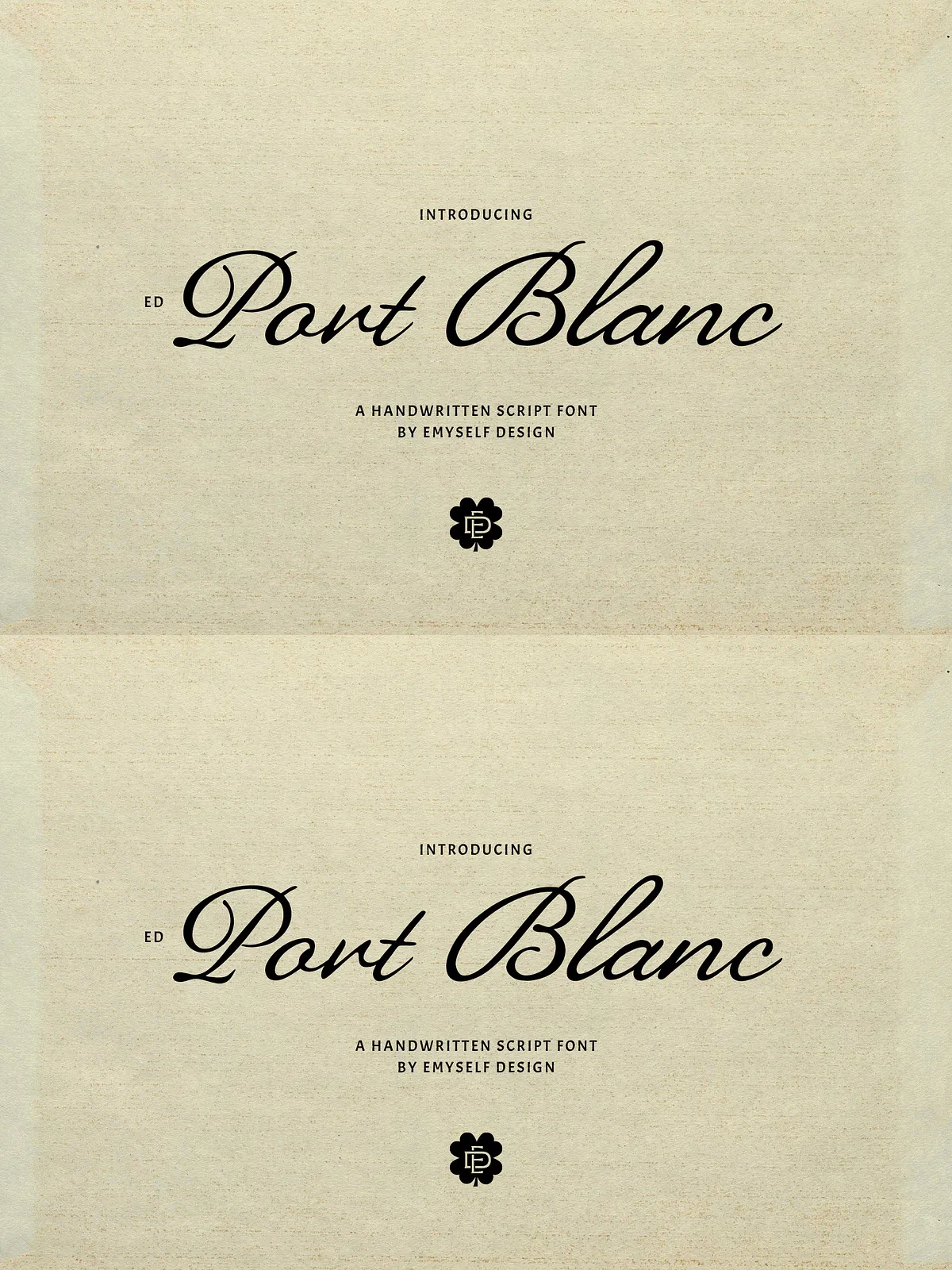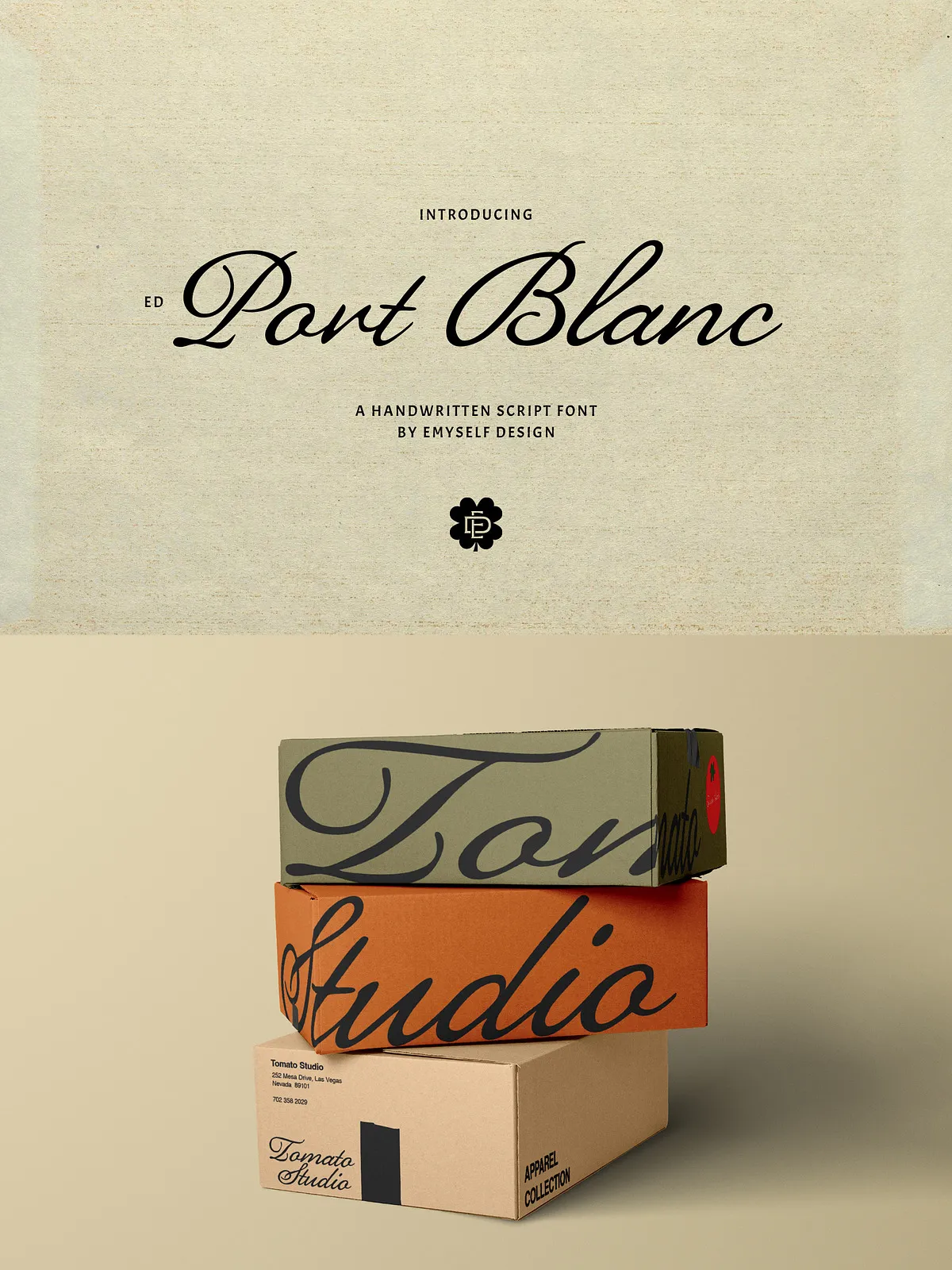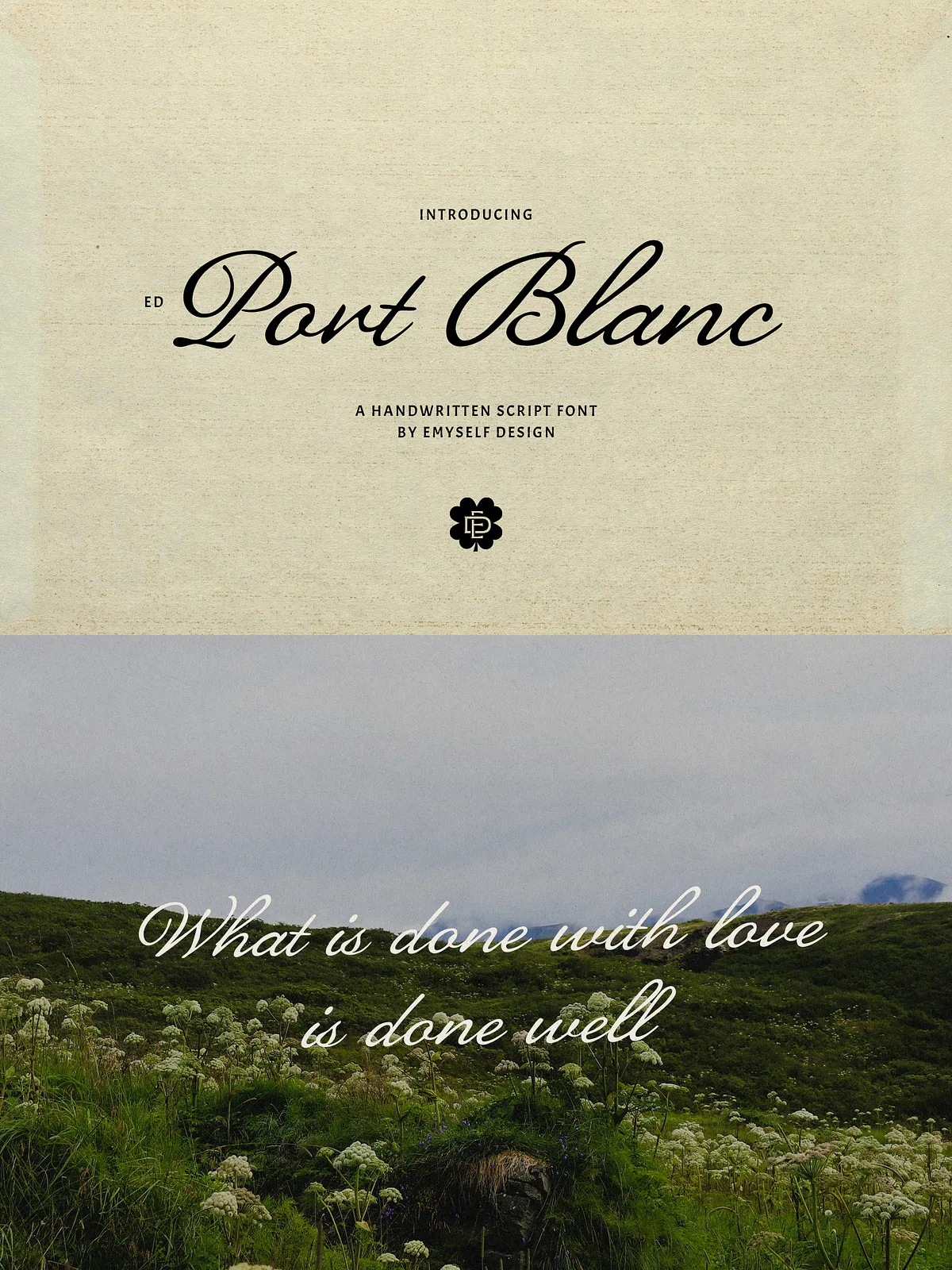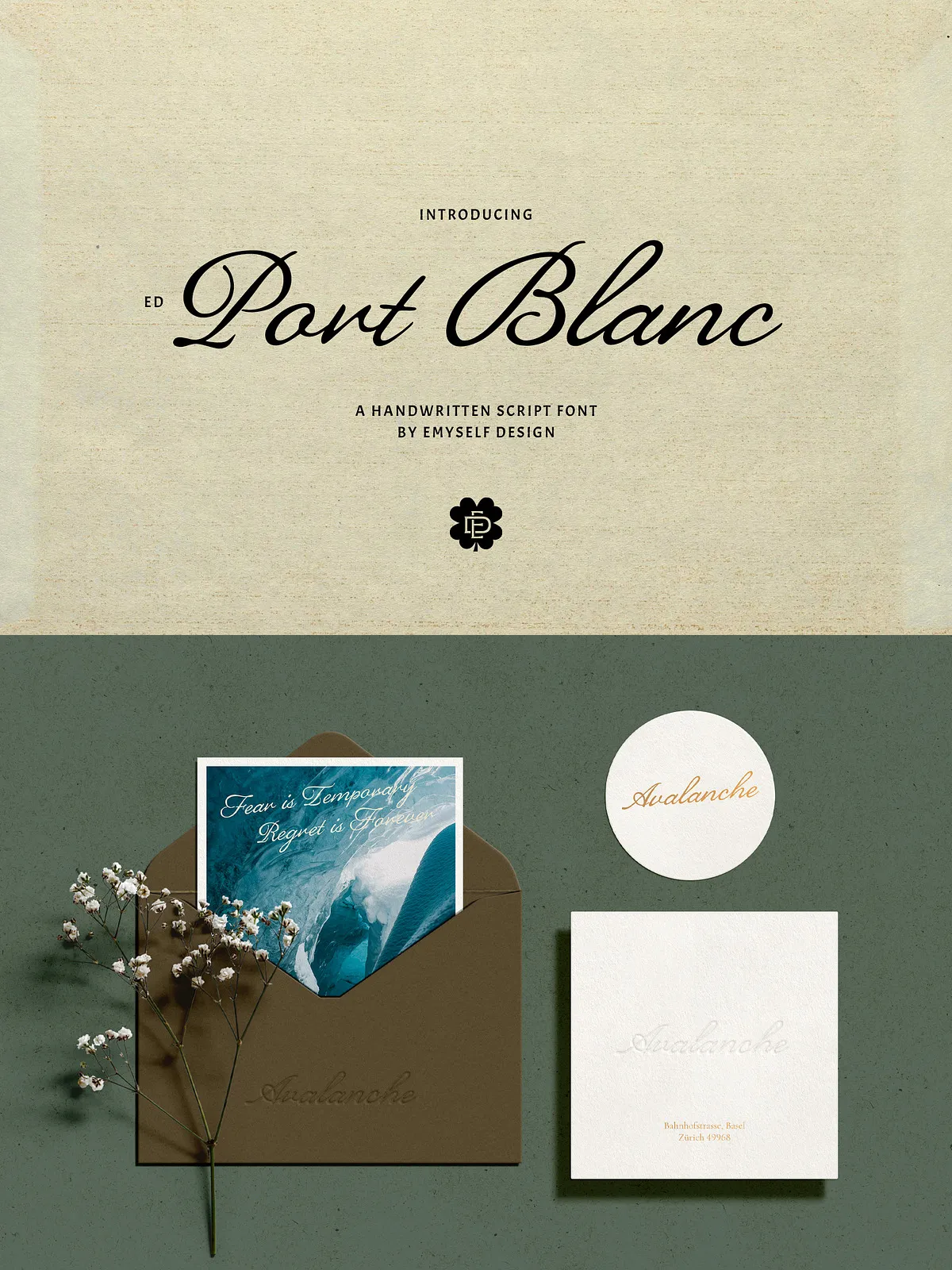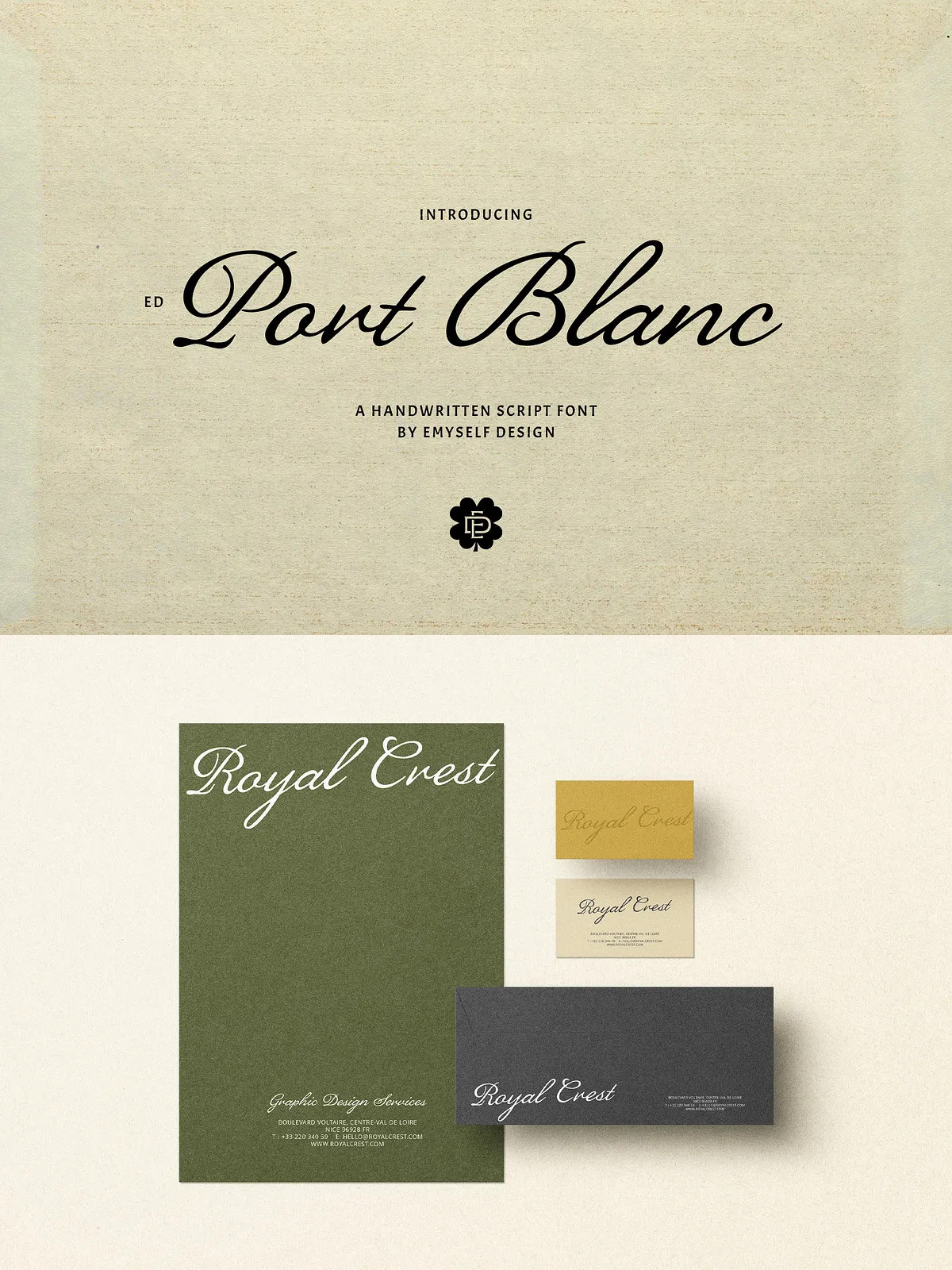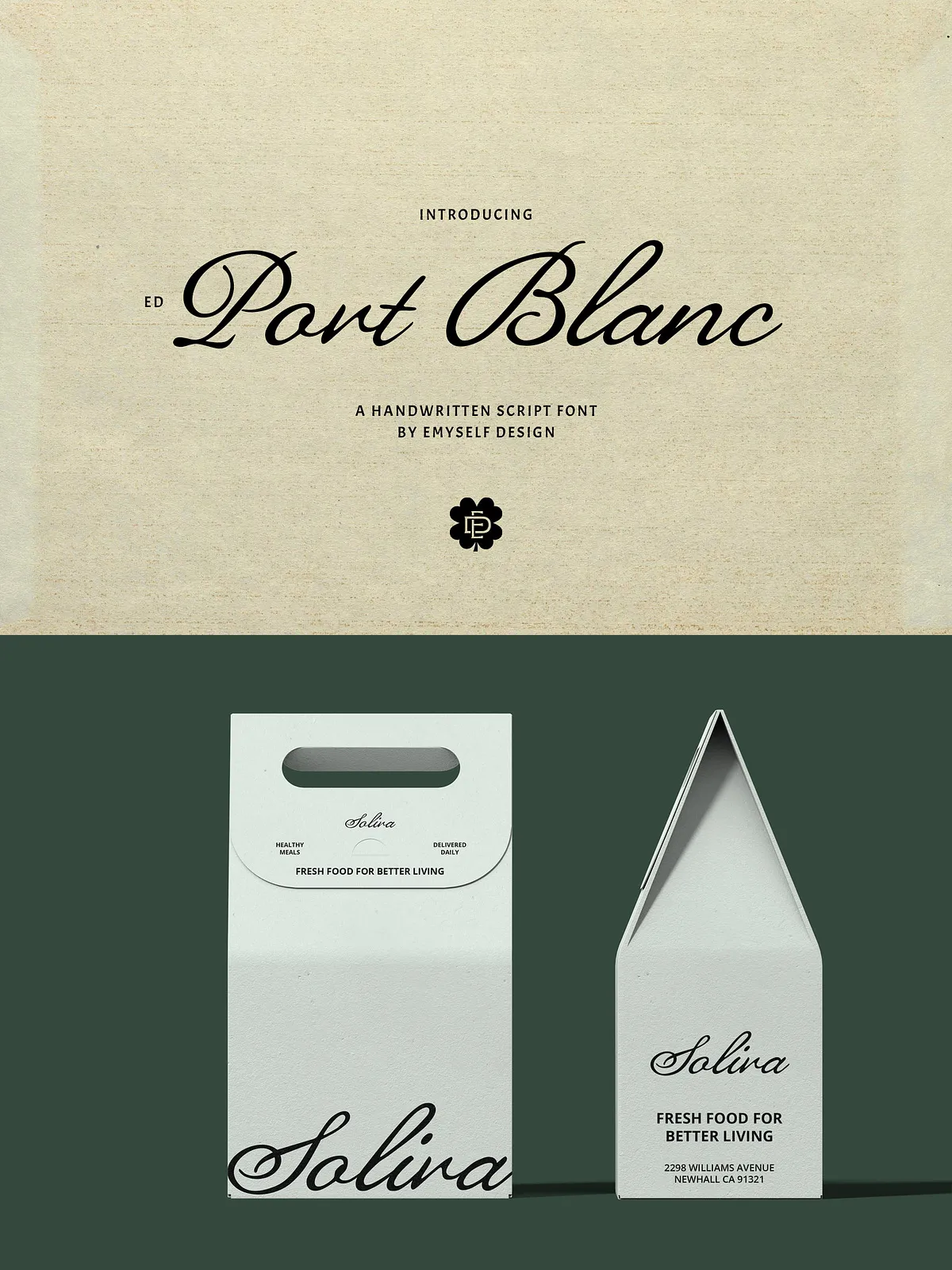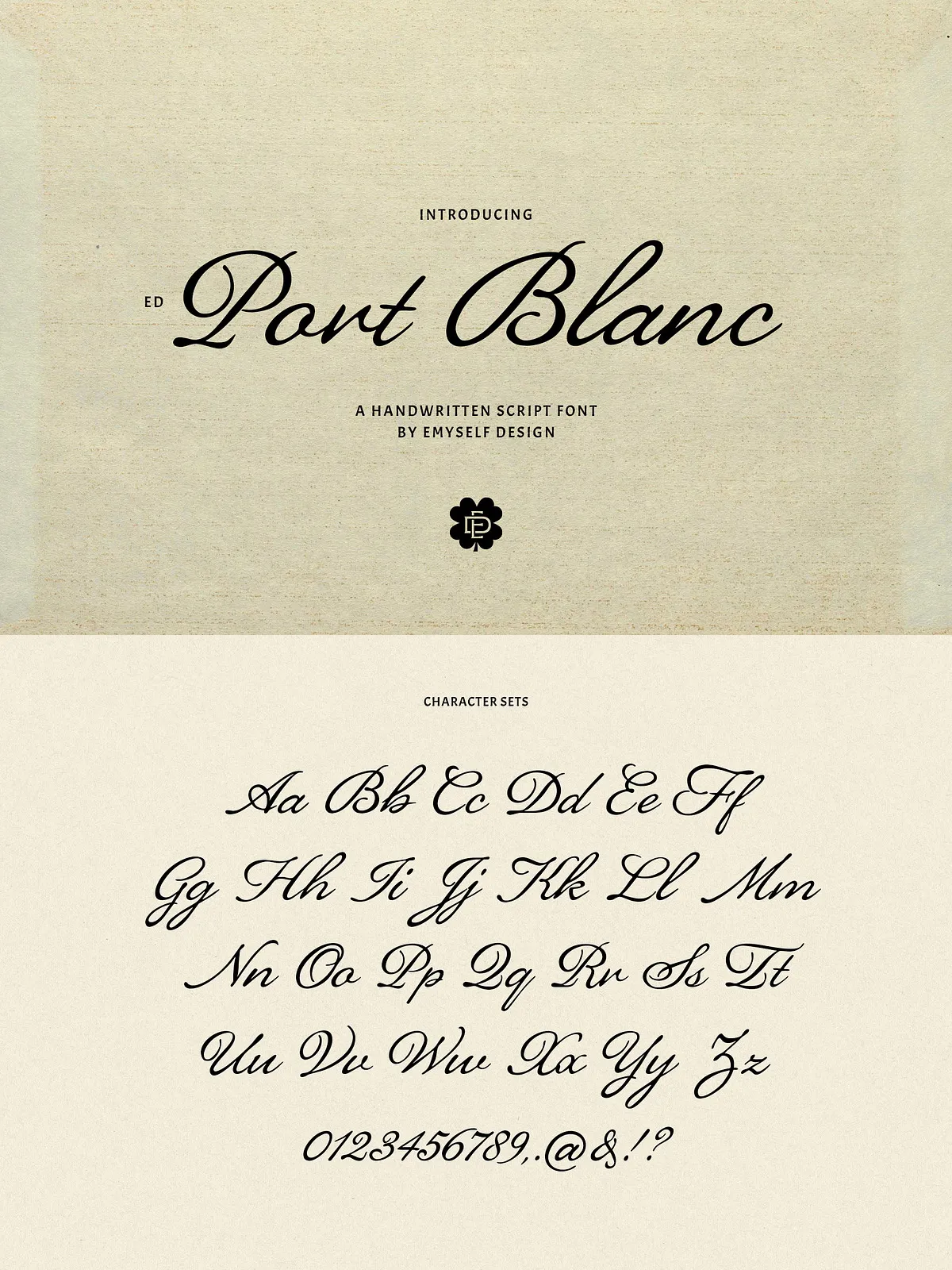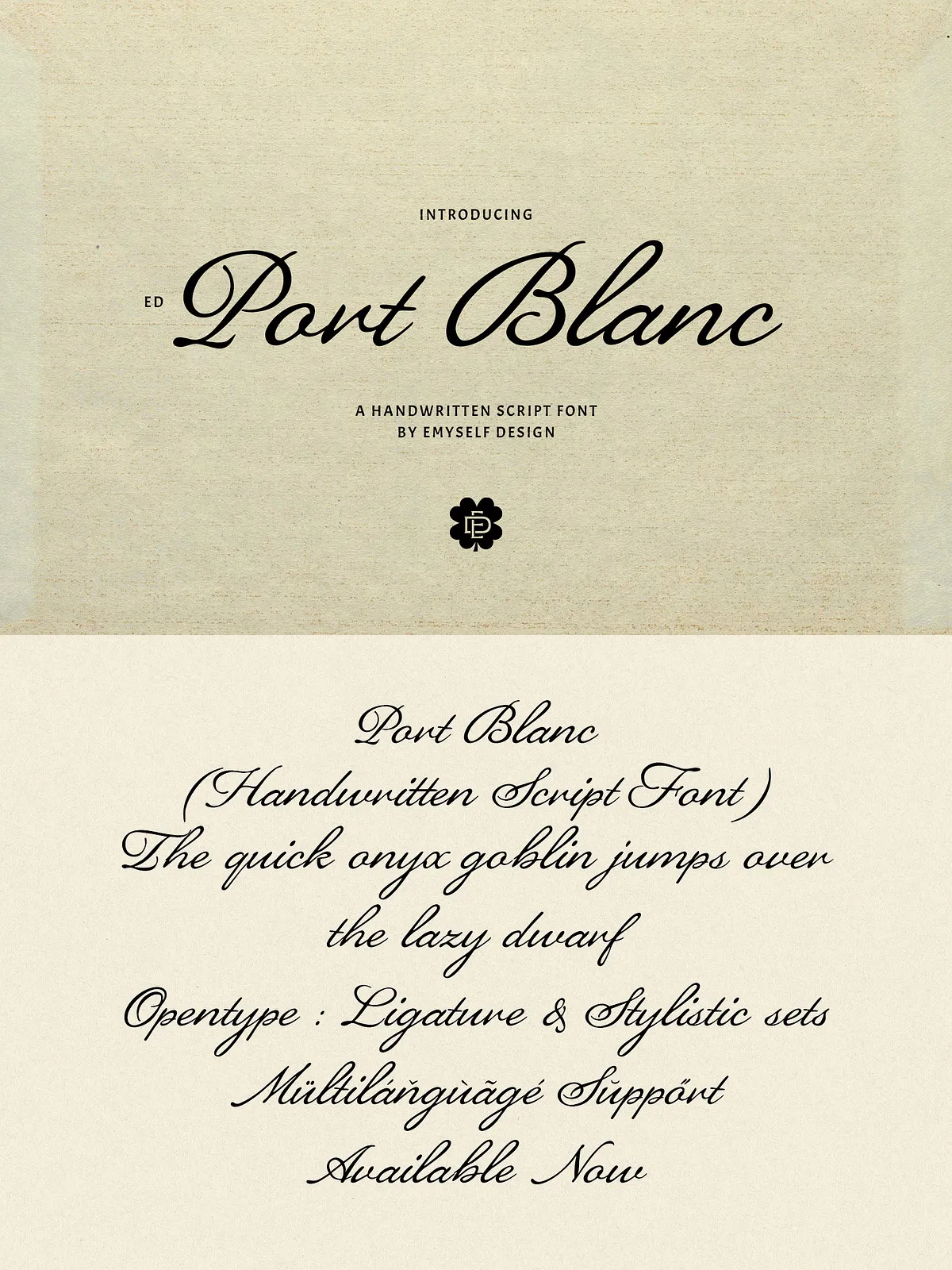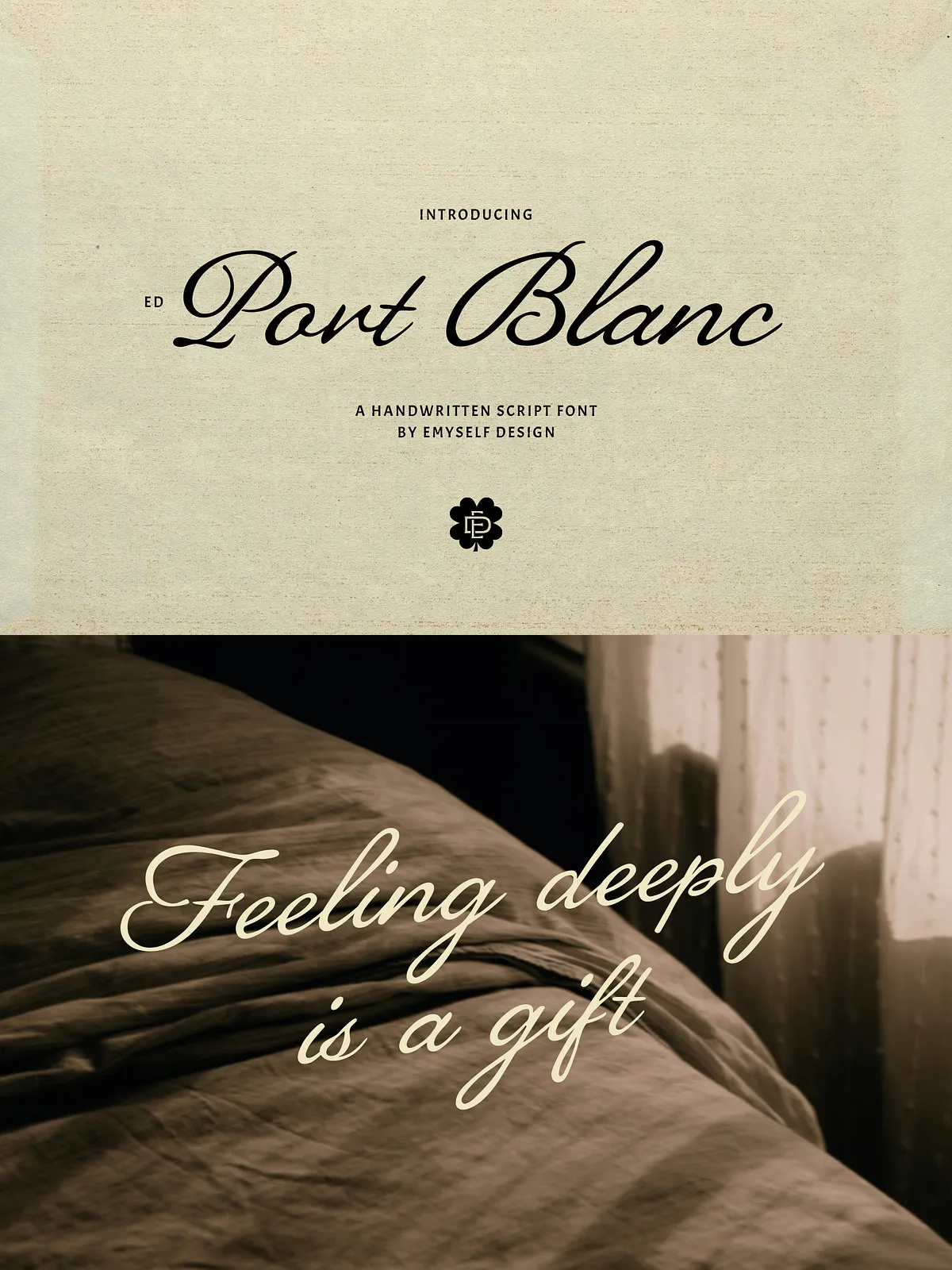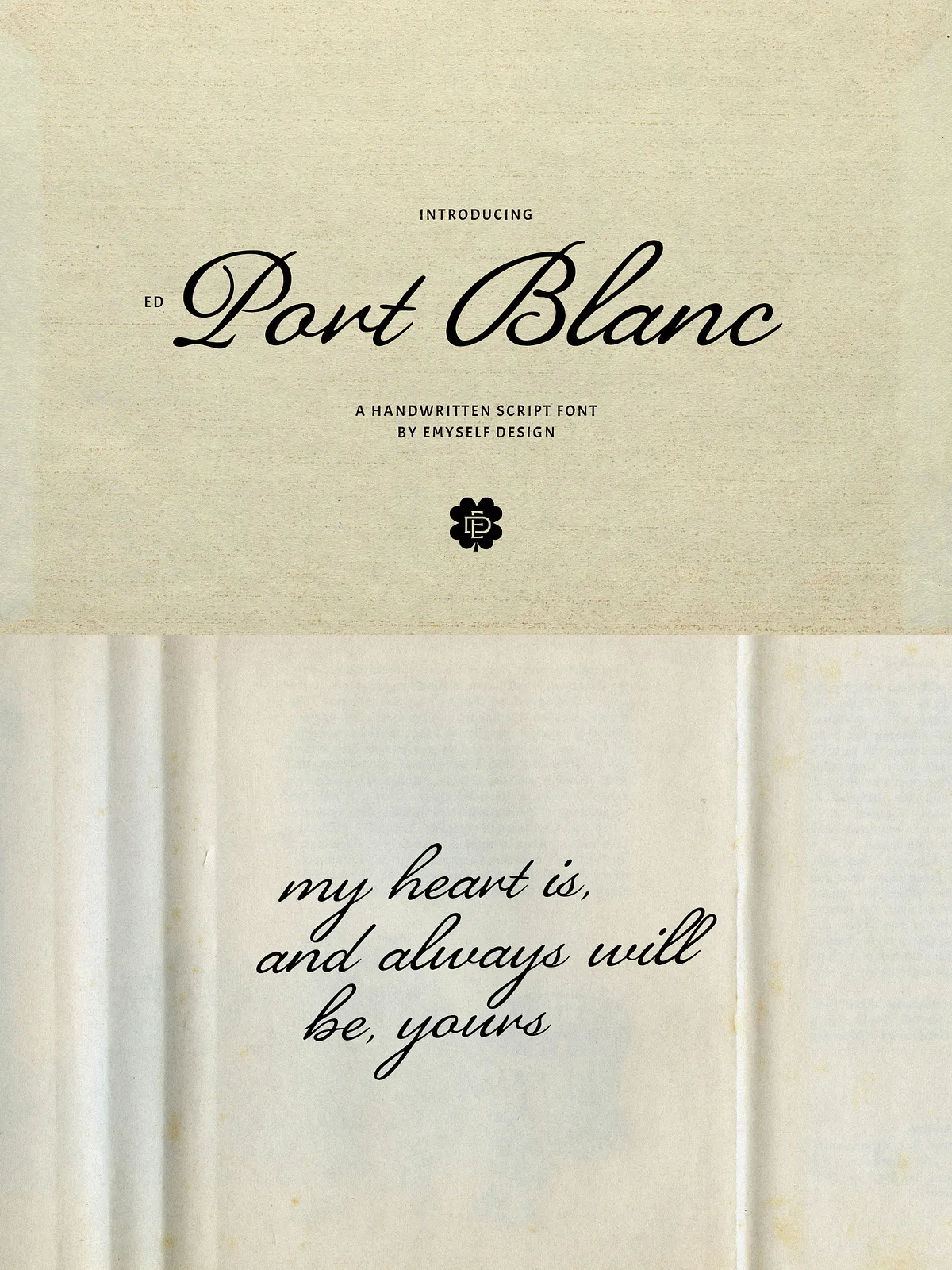
ED Port Blance captures the spontaneity and warmth of real handwriting with fluid strokes and subtle irregularities that feel both natural and refined. This script font emphasizes organic motion and handcrafted character, enabling you to craft expressive headlines, elegant signatures, and intimate branding that connect emotionally with viewers. Designers and small brands will find ED Port Blance easy to adopt: it injects personality without sacrificing legibility, and it adapts cleanly across print and digital media.
Handcrafted letterforms and expressive texture
ED Port Blance emphasizes authentic detail. Each letterform shows slight variations and organic terminals that mimic pen-on-paper writing. The irregularities are purposeful: they introduce tactile warmth while keeping text readable at common display sizes. The font sustains rhythm and flow across letter combinations, and delicate stroke contrasts help headlines sing while preserving clarity in short blocks of text.
OpenType features and typographic control
This family includes useful OpenType features that let you refine typographic composition. Use ligatures to smooth joins between frequent letter pairs, apply stylistic sets to swap alternate shapes, and enable contextual alternates to achieve more natural, handwritten joins. These features allow you to create custom, varied wordforms that avoid mechanical repetition and produce authentic, craft-driven layouts.
Primary Uses
Where ED Port Blance excels
- Branding & Logos: Build signature logos and wordmarks that feel personal and upscale—ideal for boutiques, artisans, and lifestyle brands.
- Wedding Invitations & Stationery: Compose romantic headings, RSVP elements, and envelope callouts that read as handcrafted and intimate.
- Signature Logos: Create recognizable signatures for designers, photographers, and creatives who want a distinct personal mark.
- Fashion & Beauty Branding: Elevate product labels, packaging, and lookbooks with a soft, elegant script that conveys craftsmanship.
- Editorial Design: Accent feature spreads, pull quotes, and feature titles with a humanist voice that contrasts well with clean sans serif body copy.
- Social Media & Content: Design warm, shareable posts and quotes that feel immediate and authentic.
- Packaging & Product Labels: Apply the script to cosmetics, soaps, and artisanal foods to emphasize handmade quality and provenance.
- Watermarks & Photography: Use signature variants and lighter weights as tasteful photographer watermarks and overlays.
- Cafés & Boutique Identity: Design menus, signage, and in-store collateral that reinforce a cozy, handcrafted atmosphere.
Design and Pairing Guidance
How to combine ED Port Blance with other typefaces
To maximize impact, pair ED Port Blance with neutral sans serifs for body copy and modern balance. Use the script at larger sizes for names and headlines, then switch to a clean sans for extended reading. For vintage or artisanal projects, combine the script with a subtle serif to create a layered, tactile look. When using color and texture, choose warm palettes and soft paper stocks to complement the font’s human touch.
Practical typography tips